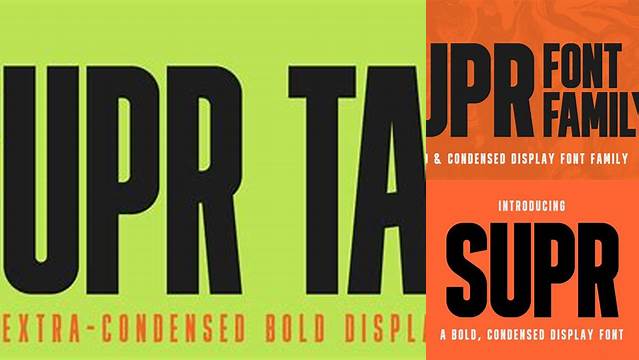
Hey guys! Ever needed a font that just screams boldness and height? I'm talking about those supr tall bold fonts that grab attention and make a statement. Well, you've landed in the right spot! Let's dive into the world of these fonts and how you can snag them for free. We'll cover everything from what makes a font "supr tall and bold" to where you can find these treasures without breaking the bank. So, buckle up, and let's get started!
What Makes a Font "Supr Tall and Bold?"
Okay, first things first: what exactly defines a supr tall bold font? It's more than just being tall and thick. These fonts usually have an extended vertical height compared to their width, making them appear elongated. The "bold" part means the strokes are thicker than regular fonts, adding weight and impact. Think of it as the font equivalent of a skyscraper – imposing and hard to miss.
These fonts are designed to command attention. They often feature: strong lines, minimal curves, and a clear, decisive structure. The height-to-width ratio is crucial. A standard font might have a 1:1 ratio, but a supr tall font can go up to 2:1 or even higher. This dramatic difference is what makes them stand out. The boldness amplifies this effect, ensuring that each character is visually powerful. When designers choose a supr tall bold font, they're often aiming for a modern, minimalist aesthetic, something that feels both contemporary and timeless.
The psychological impact of these fonts is significant. They evoke feelings of strength, stability, and modernity. In branding, using a supr tall bold font can help a company project an image of confidence and innovation. In editorial design, they can be used for headlines to draw readers in and create visual hierarchy. The key is to use them sparingly and intentionally. Overusing such a dominant font can lead to visual clutter and dilute its impact.